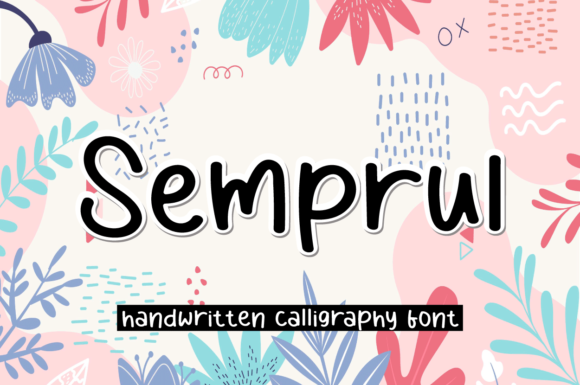
Step into the world of elegance and sophistication with Semprul Font, a captivating handwritten font that exudes warmth and charm. This exquisite font, crafted by the talented Soegih Artwork, will elevate your business proposals to new heights of professionalism and creativity.
Immerse yourself in the beauty of Semprul Font, a symphony of flowing lines, graceful curves, and delicate strokes that dance across the page. Each letter is a work of art, meticulously designed to convey a sense of authenticity and sincerity. Whether you're crafting a formal proposal for a new client or presenting your ideas to a team, Semprul Font will add a touch of elegance and charm that is sure to leave a lasting impression.
With its timeless appeal, Semprul Font is the perfect choice for those seeking a font that exudes professionalism and sophistication. Its versatility extends beyond business proposals, making it an ideal choice for branding, marketing materials, invitations, greeting cards, and any project where a touch of elegance is desired.
Unleash your creativity and let Semprul Font guide you to new heights of design excellence. Its user-friendly nature makes it easy to incorporate into your projects, allowing you to focus on your content while Semprul Font takes care of the aesthetics. Trust Semprul Font to elevate your designs and leave a lasting impression on your audience.